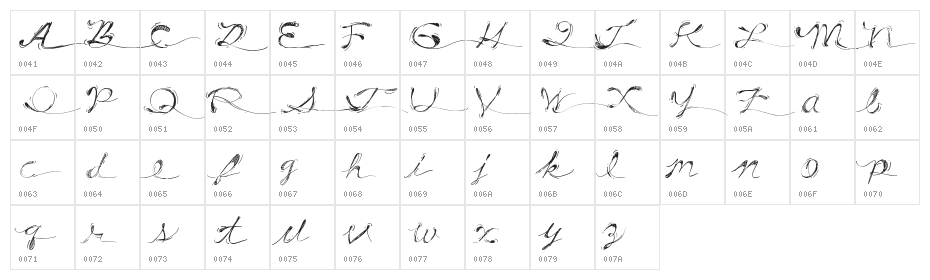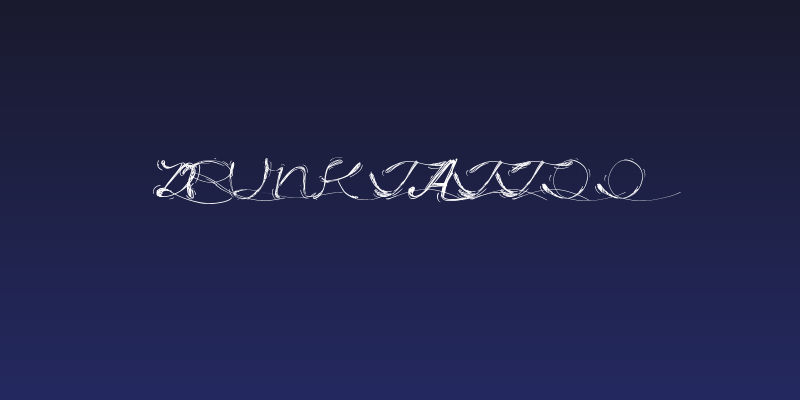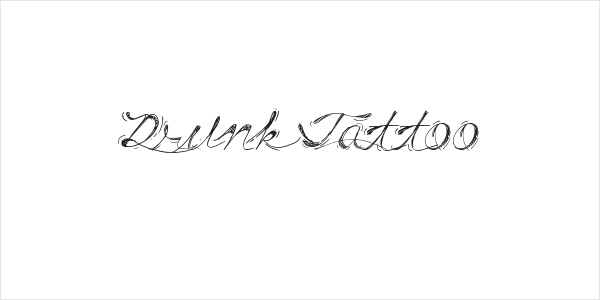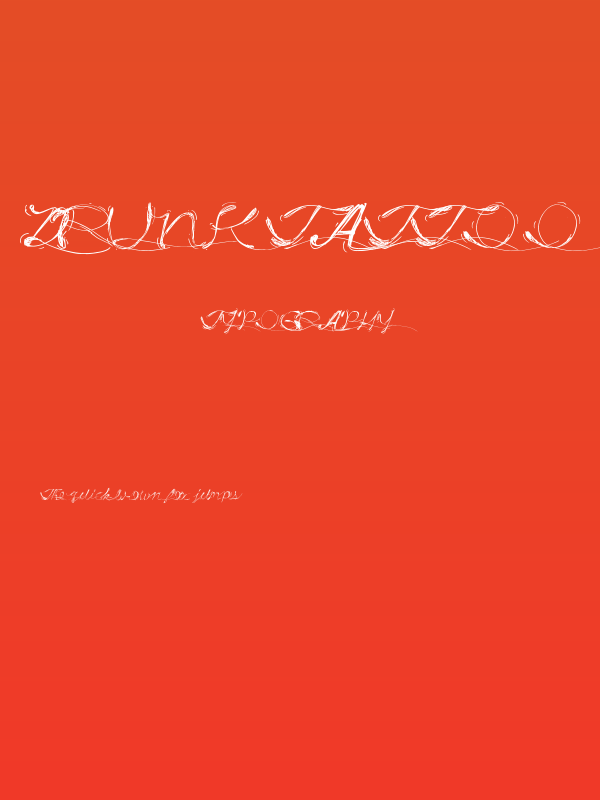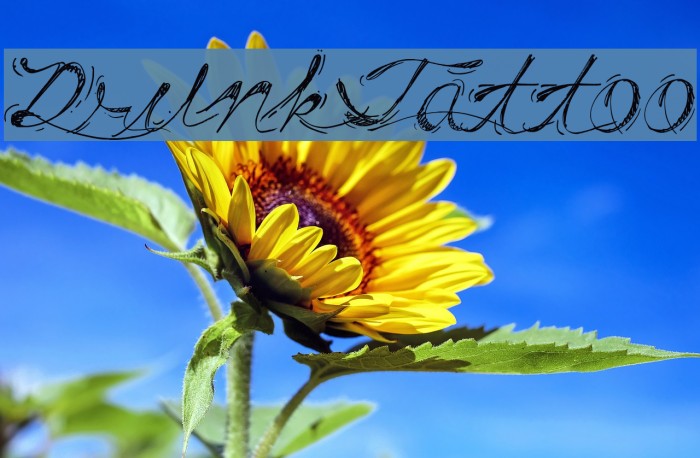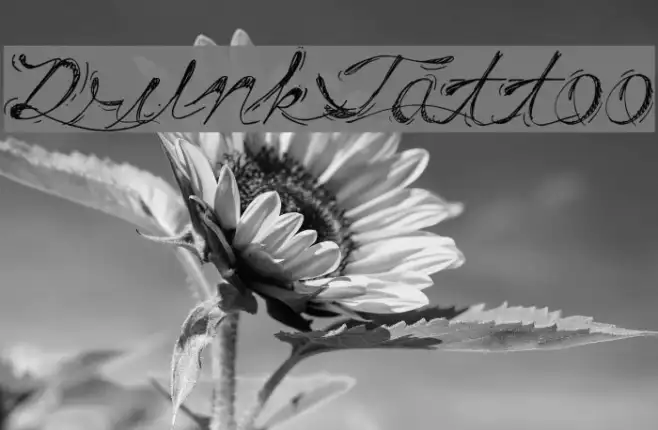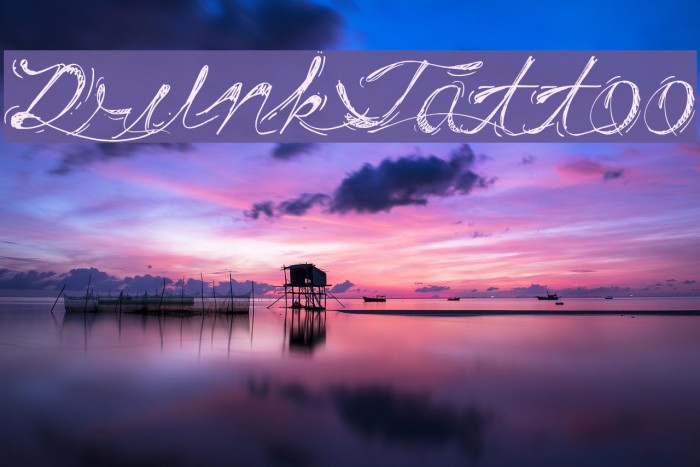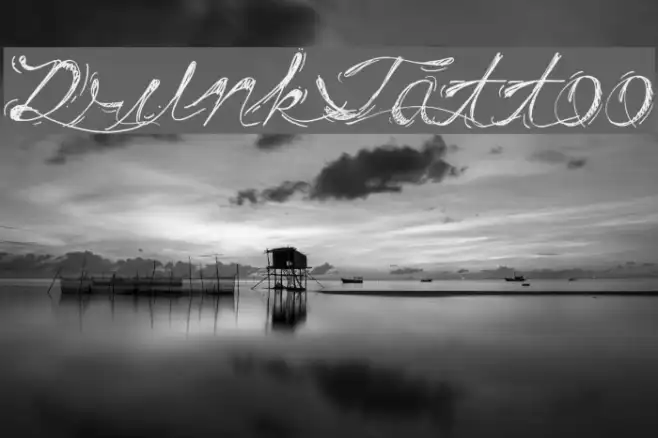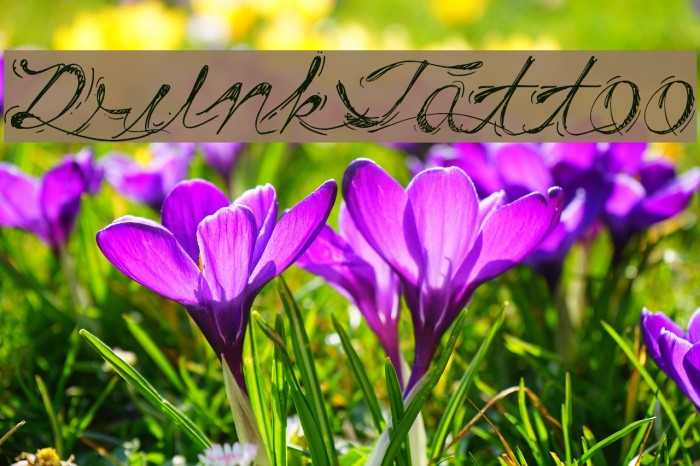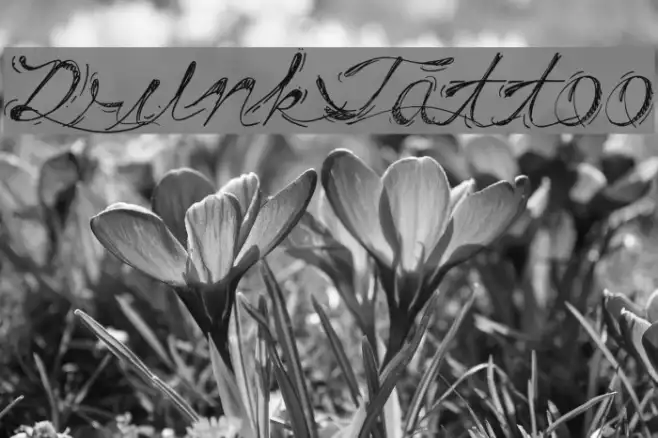
Drunk Tattoo Font
Drunk Tattoo Description
This font features an intricate and artistic design, characterized by its swirling, flowing lines that mimic the appearance of hand-drawn calligraphy. The letters are adorned with elaborate flourishes and loops, giving them a dynamic and whimsical feel. Each character is unique, with varying stroke thicknesses that create a sense of movement and energy. The overall appearance is both elegant and slightly chaotic, reminiscent of a tattoo style with a touch of spontaneity. This font is perfect for projects that require a creative and unconventional touch, offering a distinct personality that stands out.
| Use Case | Logos, Artistic projects, Tattoos |
| Proposed Projects | Ideal for tattoo designs, artistic posters, album covers, and creative branding projects. |